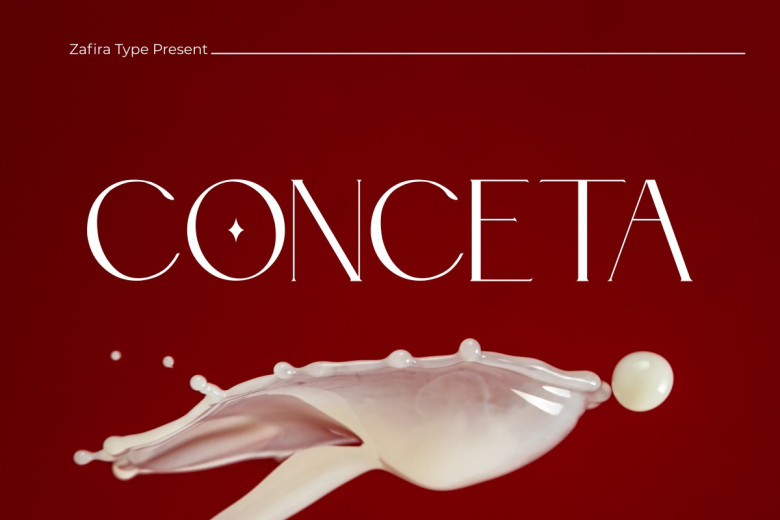
Conceta Font
Conceta is an elegant and contemporary serif font designed with luxurious curves for branding purposes, creating an eye-catching appearance and perfect design. Conceta was carefully created so users could use it for making beautiful and appealing designs ranging from logos and brand identities, web display advertisements, pamphlets for advertising etc.
Conceta Serif Font